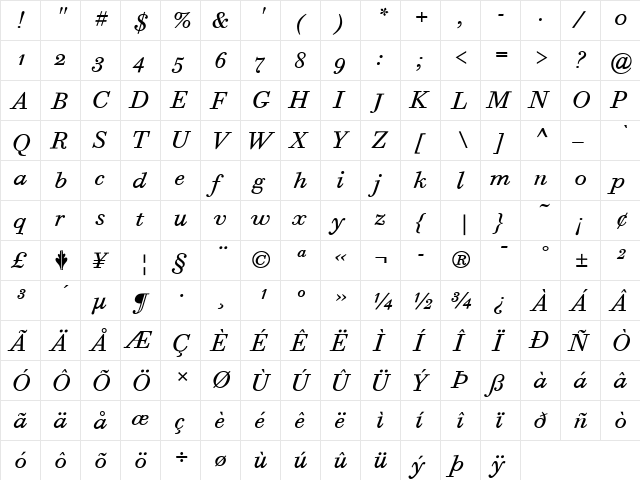
Bodoni Six ITC Book Italic
Design Context for Bodoni Six ITC Typeface
Bodoni Six ITC takes a measured approach to typography — its balanced proportions and neutral character make it a reliable workhorse for both digital and print work. The slanted form adds forward momentum and visual energy.
Pro Tip: Try Bodoni Six ITC for annotation and caption copy alongside an upright companion — the contrast in angle creates a dynamic but ordered typographic system.